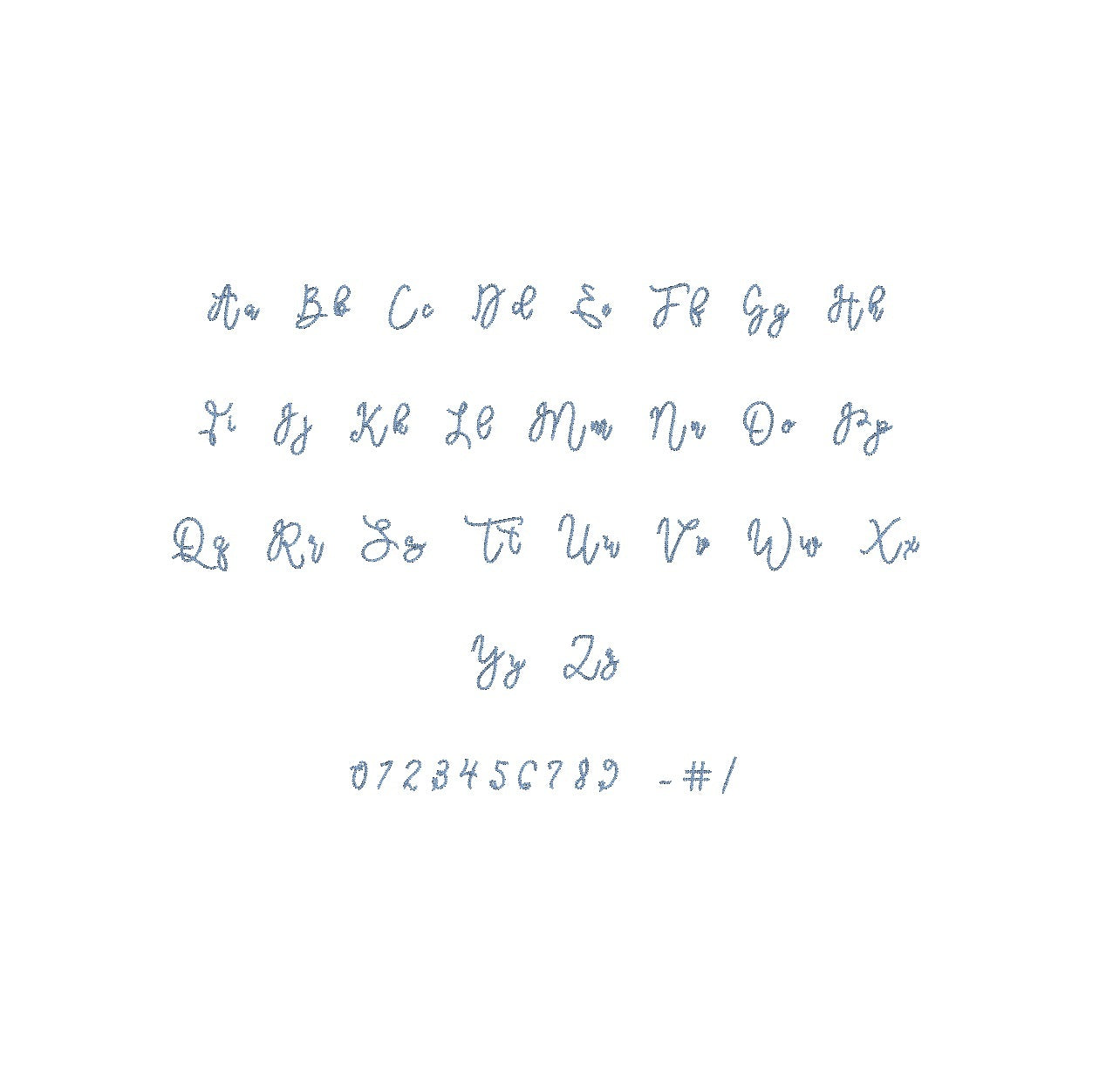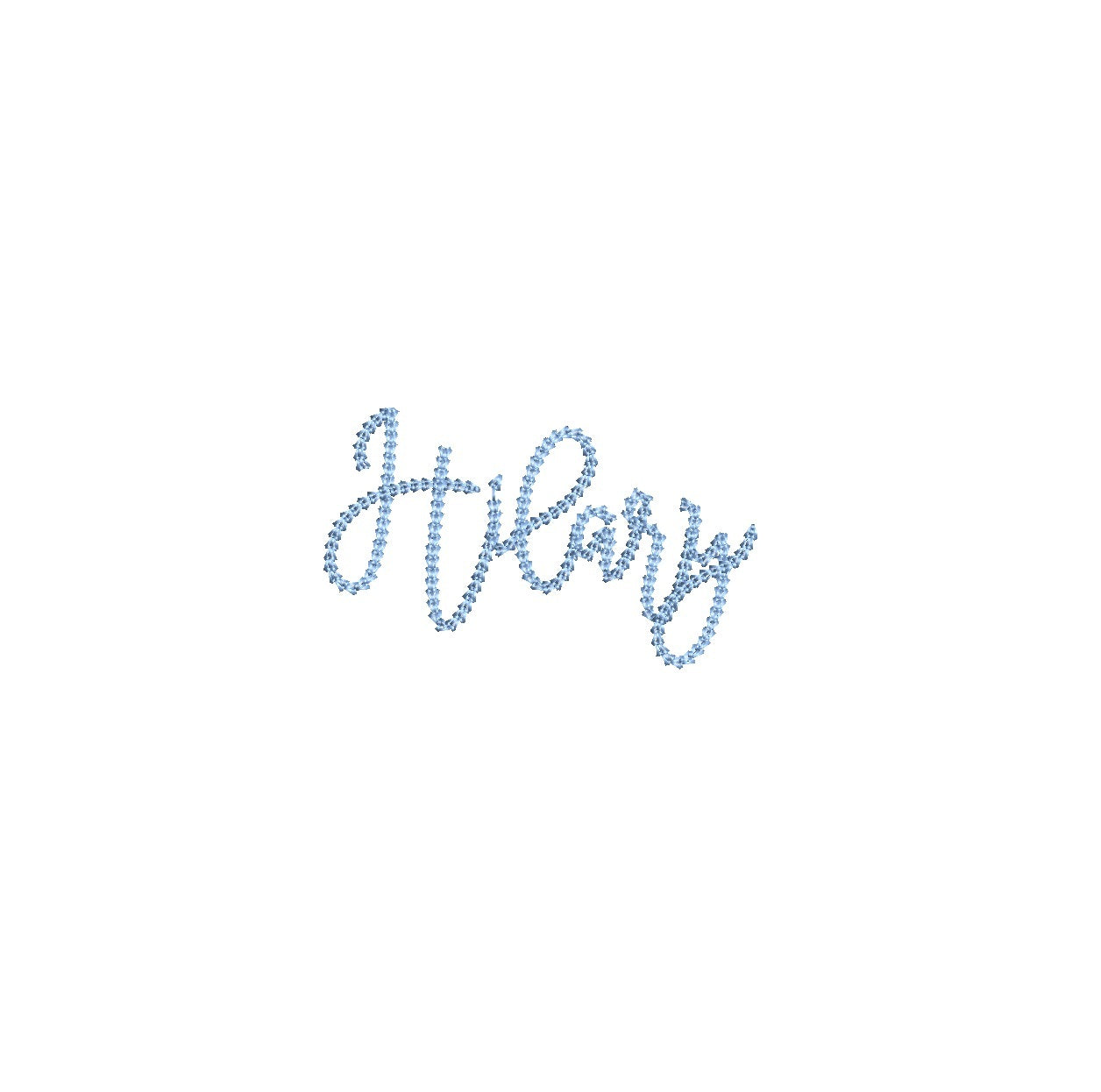
Welcome to the world of exquisite embroidery with Hilary Chain Stitch ESA font - Expertly designed for Wilcom Studio e4.5.6 and Hatch 3 versions and above. Elevate your creations with this versatile font's stunning chain stitch pattern and seamless compatibility with leading software. Effortlessly achieve professional-grade designs that stand out. Ideal for fashion, home decor, and personalized gifts, Hilary Chain Stitch ESA font unlocks limitless possibilities. Seamlessly integrate and optimize your embroidery projects, turning your vision into reality. Step into the future of embroidery design today with Hilary Chain Stitch ESA font and take your craftsmanship to new heights.